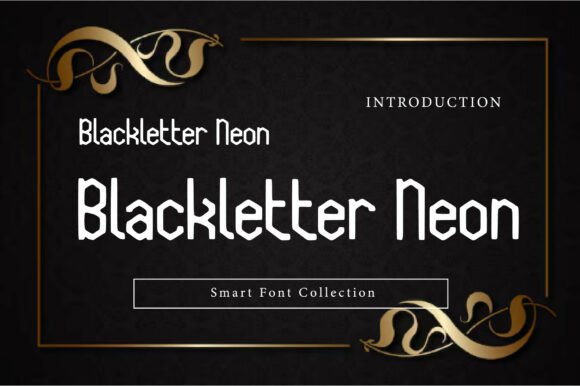
The Ultimate Guide to Blackletter Neon Font: A Bold and Eye-Catching Display Typeface
I’ll never forget the design moment that led me to discover the Blackletter Neon font. I was working on a project for a client who wanted a bold, eye-catching headline that would capture the essence of their brand. I had tried countless fonts, but nothing seemed quite right. That was until I stumbled upon Blackletter Neon. Its unique blend of classic blackletter foundations and modern neon-style twist instantly caught my attention, and I knew I had found the perfect fit.
An Honest Review of Blackletter Neon
• ✨ Bold and eye-catching design: Blackletter Neon is perfect for making a statement with your designs.
• ✅ Unique blend of classic and modern styles: The font’s fusion of blackletter foundations with a neon-style twist gives it a distinctive look that’s hard to find elsewhere.
• 🎨 Versatile and creative possibilities: From posters and headlines to logos and album covers, Blackletter Neon can be used in a wide range of creative projects.
While Blackletter Neon is an amazing font, there are a few things to keep in mind. ⚠️ Some users have reported that the font can be a bit tricky to read at smaller sizes, so it’s best to use it for display purposes only. Additionally, 🤔 the font’s bold design can sometimes make it difficult to pair with other fonts, so it’s essential to choose complementary fonts carefully.
The Designer Inspiration Behind Blackletter Neon
The story behind Blackletter Neon is one of creative experimentation and innovation. According to the font’s designers, the inspiration came from a desire to blend traditional blackletter letterforms with modern, neon-style aesthetics. The result is a font that’s both nostalgic and cutting-edge, perfect for designers who want to add a touch of edginess to their work.
Font Name Blackletter Neon Font
Author Wow Magic
Q: What is Blackletter Neon font?
A: Blackletter Neon is a bold and eye-catching display typeface that fuses classic blackletter foundations with a playful, modern neon-style twist.
Q: What can I use Blackletter Neon font for?
A: Blackletter Neon is perfect for creative branding, posters, headlines, streetwear, album covers, logos, and designs that want to mix old-school gothic attitude with modern, vibrant energy.
Q: Is Blackletter Neon easy to read?
A: While Blackletter Neon is a beautiful font, it can be a bit tricky to read at smaller sizes. It’s best to use it for display purposes only.